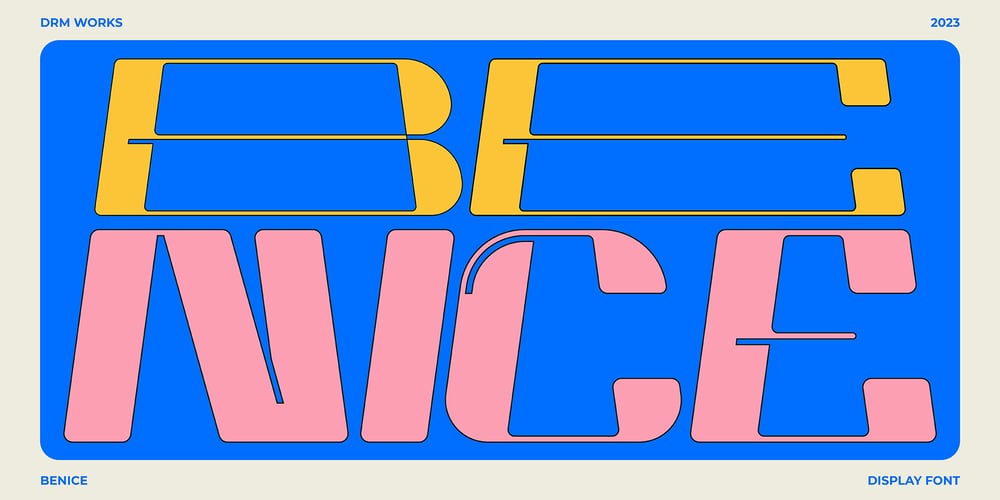
Benice Font Family was designed by Darman Kadir and published by DRM Works. Benice contains 1 styles and family package options. Benice is a modern display font that is super bold and perfect for headlines. It is fun and playful, perfect display font for any projects, such as logo, magazine, branding, sticker, sublimation and many more.